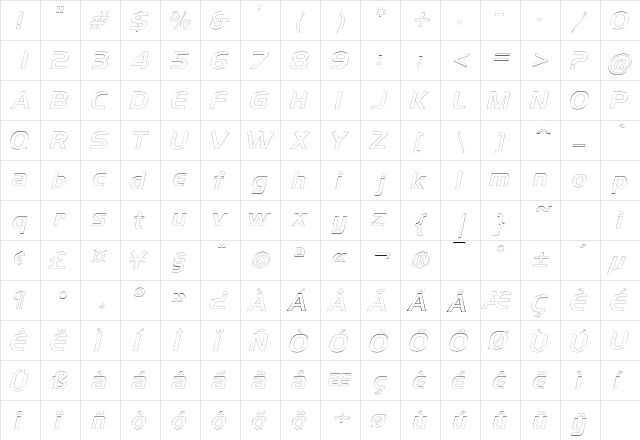
AeroOutline Italic
Design Context for AeroOutline Typeface
AeroOutline is built around its visual character rather than neutral utility — its distinctive forms are designed to make an impression at display sizes. The slanted form adds forward momentum and visual energy.
Font Pairing: Pair with a clean neutral sans-serif for body copy to let AeroOutline's character lead without overwhelming the composition.
Pro Tip: Use AeroOutline exclusively at display sizes — it was designed to be seen, not read at length. Let a neutral companion handle body copy.